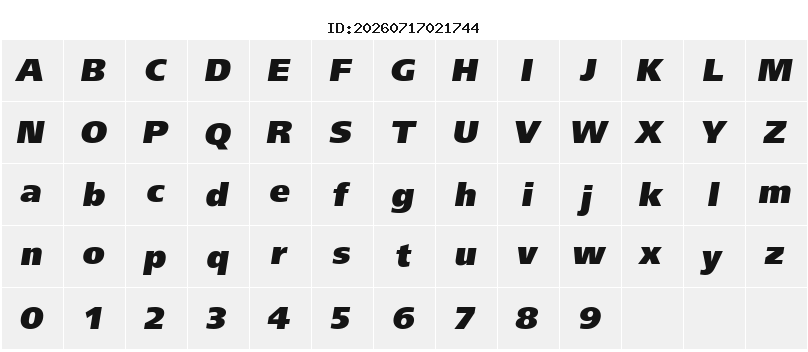
AG ForeignerULB-Oblique Preview
• Font Name: AG ForeignerULB-Oblique
• Font ID: FontMonger:AG ForeignerULB Oblique Medium
• Full Font Name: AG ForeignerULB Oblique Medium
• PostScript Name: AGForeignerULBObliqueMedium
About AG ForeignerULB-Oblique.ttf
AG ForeignerULB-Oblique.ttf is a modern, elegant sans-serif font designed for ultimate readability and visual harmony. Perfect for branding, headlines, web design, and print materials.